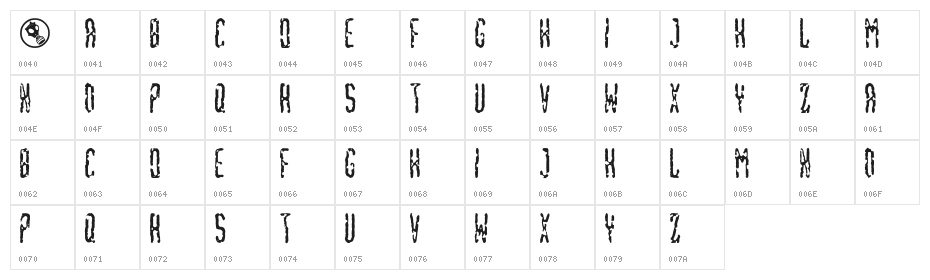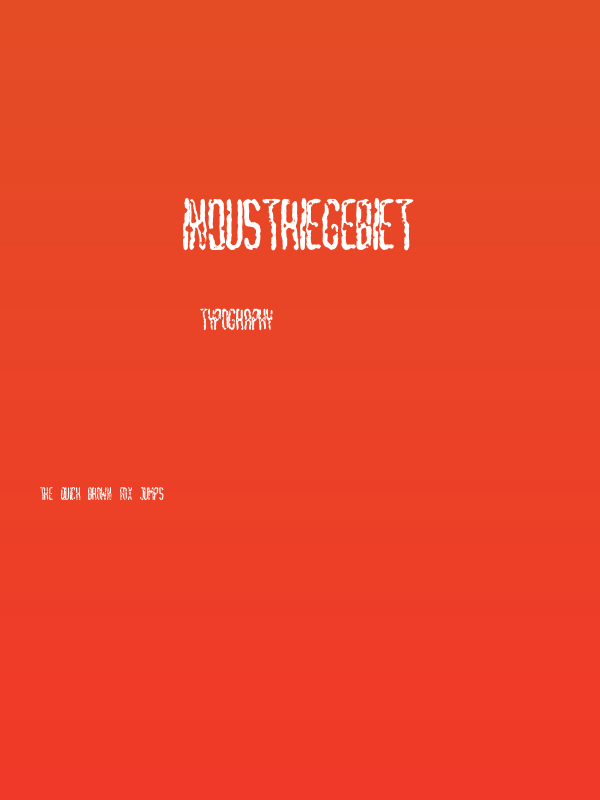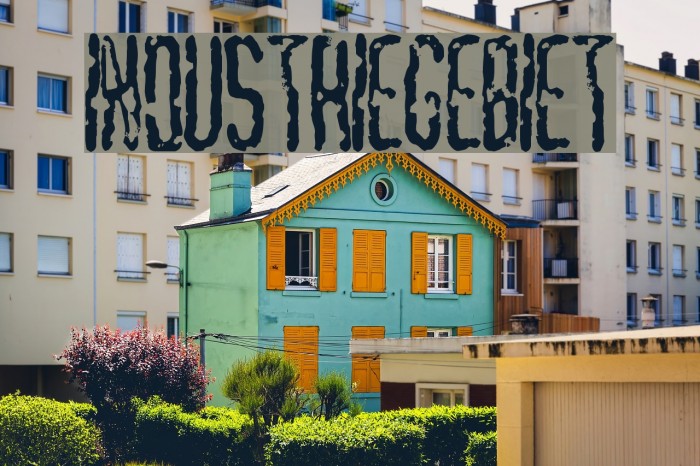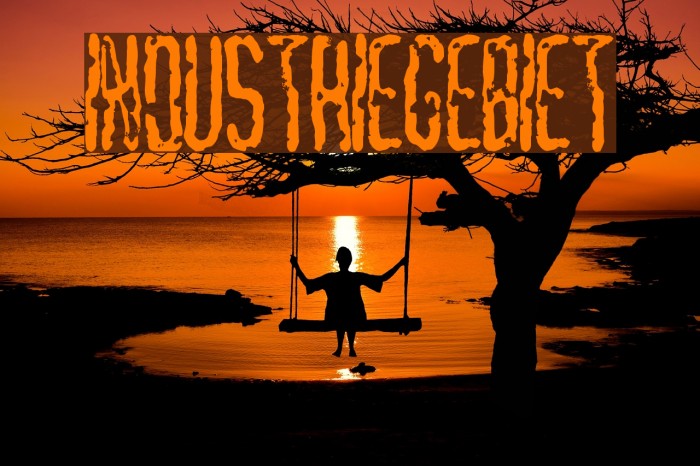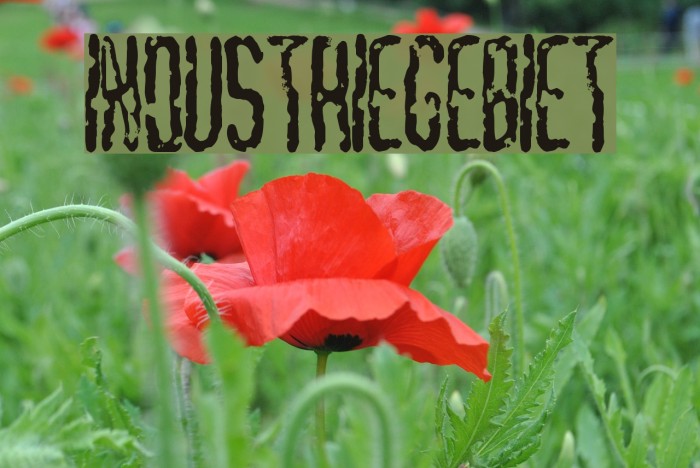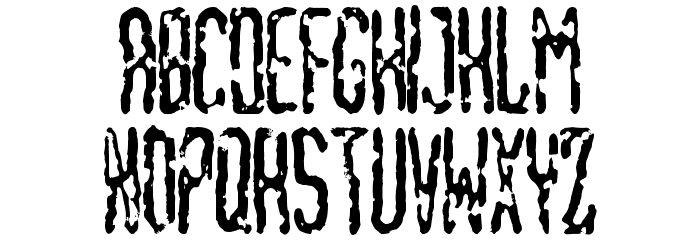
Industriegebiet Font
Industriegebiet Description
This font features a rugged, industrial aesthetic with a distressed texture that gives it a worn, gritty appearance. The uppercase letters are bold and impactful, with irregular edges that suggest a sense of decay or erosion. The design is reminiscent of urban environments, with a raw and edgy feel that captures attention. The characters are uniformly sized, maintaining a consistent height across the alphabet. The absence of lowercase letters and numbers in the image suggests a focus on bold, statement-making text. This font is ideal for projects that require a strong, industrial vibe, such as posters, album covers, or branding for edgy, modern companies.
| Overall Style | Industrial, Edgy, Urban |
| Proposed Projects | Ideal for posters, album covers, urban-themed branding, and any project needing a strong, industrial vibe. |